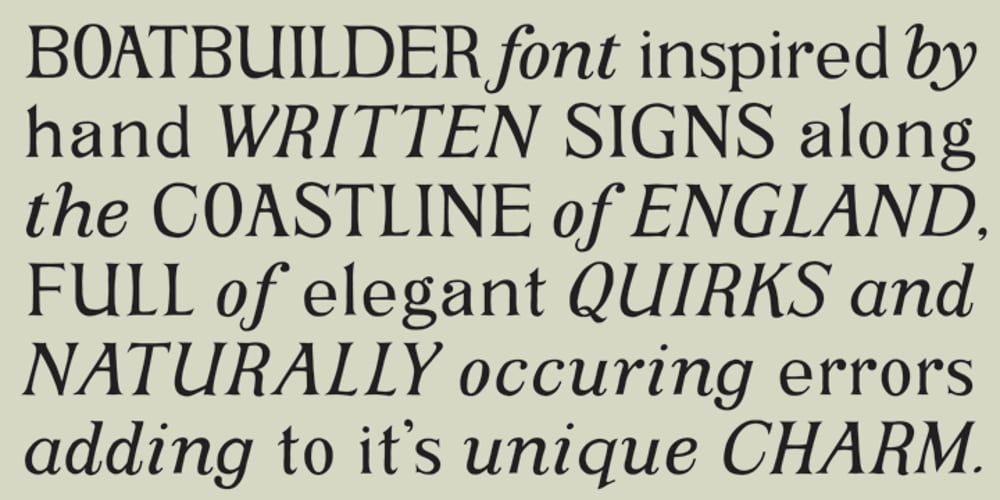
Boatbuilder Font Family was designed by Lyndon Povey and published by Crave. Boatbuilder contains 2 styles and family package options. Boatbuilder, an Open Type font, is available in roman and italic. Inspired by the natural imperfections that occur in traditional sign writing, Boatbuilder introduces an element of the human touch with this mildly wobbly yet elegant font.